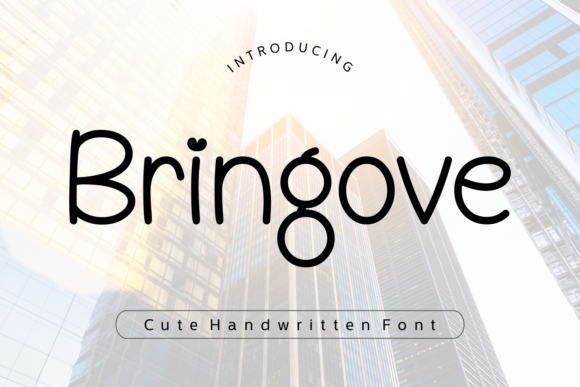
The Ultimate Guide to Bringove Font: Elevate Your Designs with this Minimalist Gem
I’ll never forget the time I was working on a project for a client who wanted a simple yet elegant font to convey their brand’s message. I spent hours scouring through font libraries, but nothing seemed quite right. That was until I stumbled upon Bringove Font. This thin, cool, and minimalist handwritten font has been a game-changer for my designs ever since. In this article, I’ll share with you why Bringove Font is an incredibly valuable asset to your font library and how you can make the most of its features.
An Honest Review of Bringove Font
What I Love About Bringove Font ✨
• 💫 Its minimalist and elegant design makes it perfect for a wide range of projects, from branding to invitations.
• ✅ The font’s thin lines and subtle curves give it a sophisticated and modern feel.
• 🌈 Bringove Font is incredibly versatile and can be used for both digital and print projects.
• 👍 Its simplicity makes it easy to pair with other fonts, ensuring a harmonious design.
• ⚠️ Some users may find the font too thin for certain design applications, such as large headings or titles.
• 🤔 The font’s minimalist design may not be suitable for projects that require a more playful or whimsical feel.
The Story Behind Bringove Font
Bringove Font was designed by a young typographer who wanted to create a font that was both simple and elegant. Inspired by the beauty of handwritten letters, the designer spent countless hours perfecting the font’s curves and lines. The result is a font that is both modern and timeless, perfect for designers who want to add a touch of sophistication to their projects.
Font Name Bringove Font
Author Rizkky (7NTypes)
What is the best use for Bringove Font? Bringove Font is perfect for designs that require a simple yet elegant font, such as branding, invitations, and digital projects.
Is Bringove Font suitable for large headings or titles? While Bringove Font can be used for large headings or titles, it may appear too thin for some design applications. Consider using a bold or condensed version of the font for larger text.